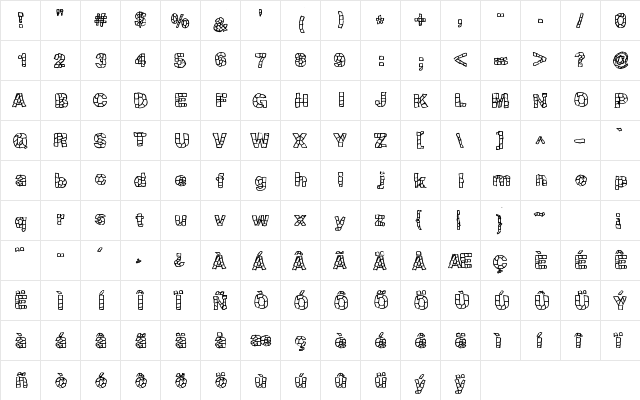
Blokqued Regular
| Designer | Max Infeld - Xerographer Fonts |
Design Context for Blokqued Typeface
Blokqued is a composed and adaptable typeface that performs quietly and consistently across a wide range of design contexts.